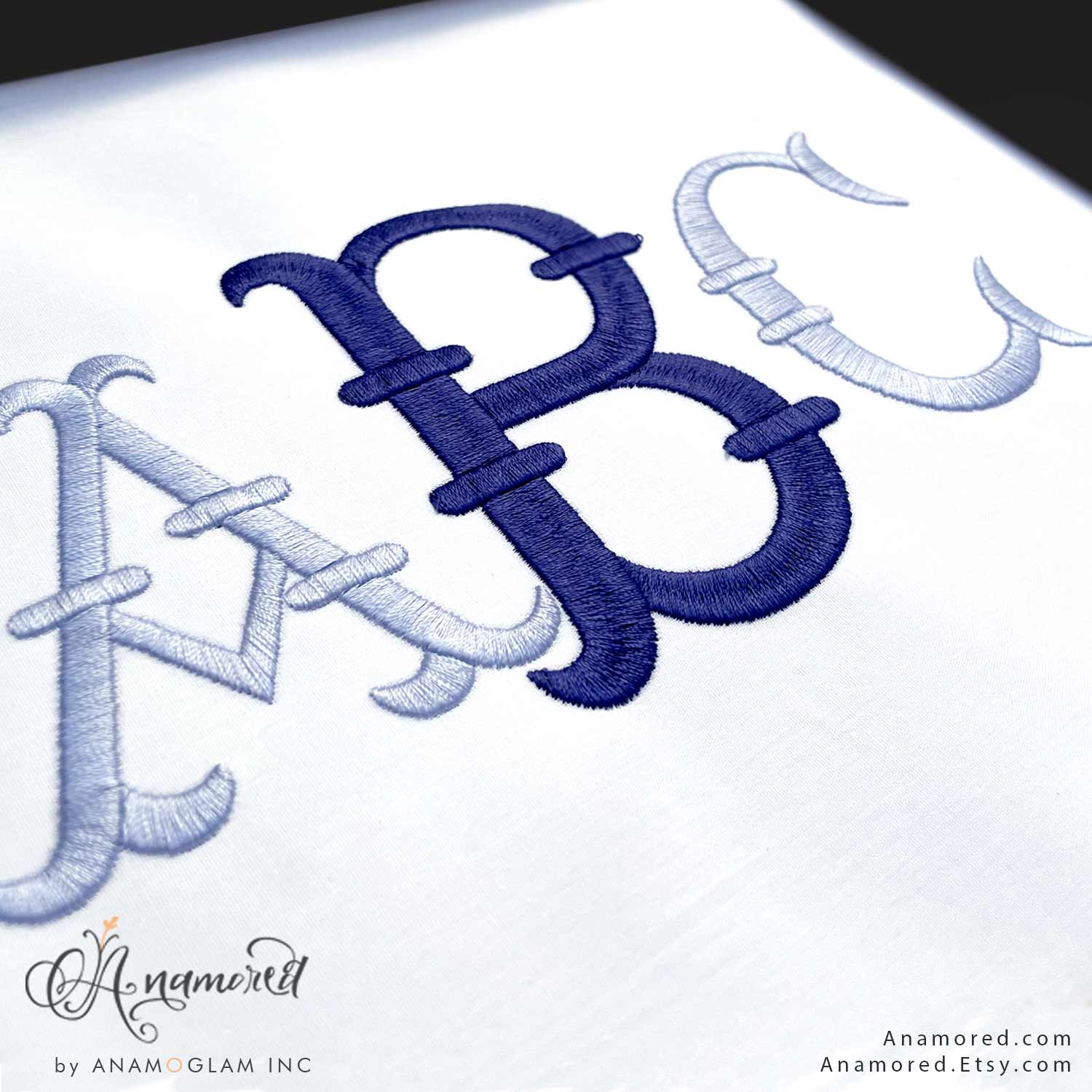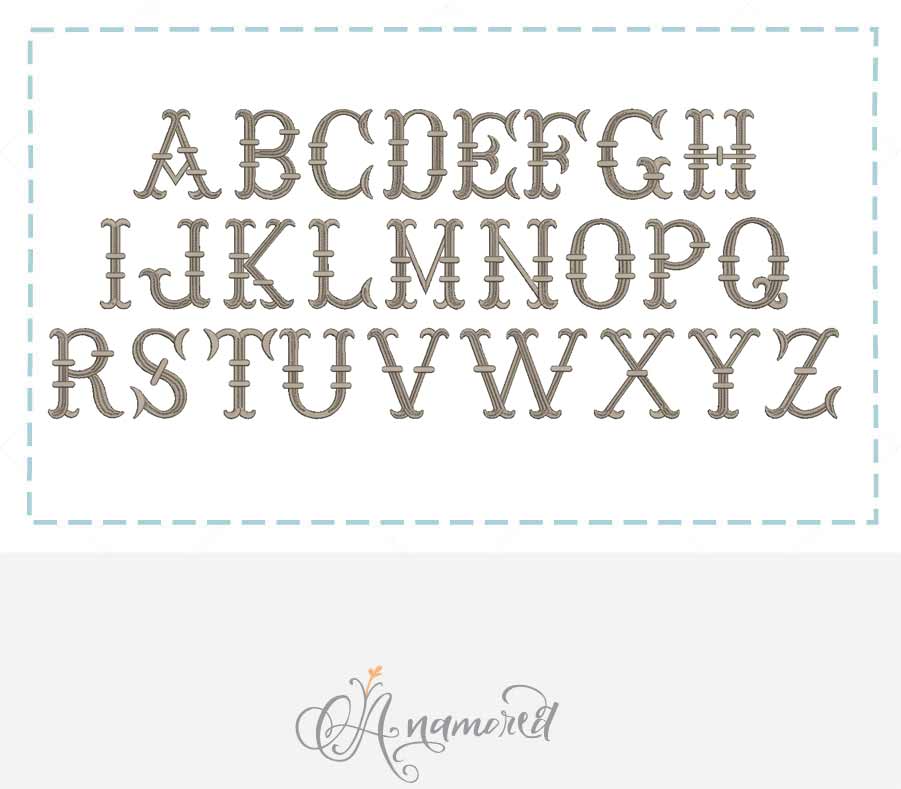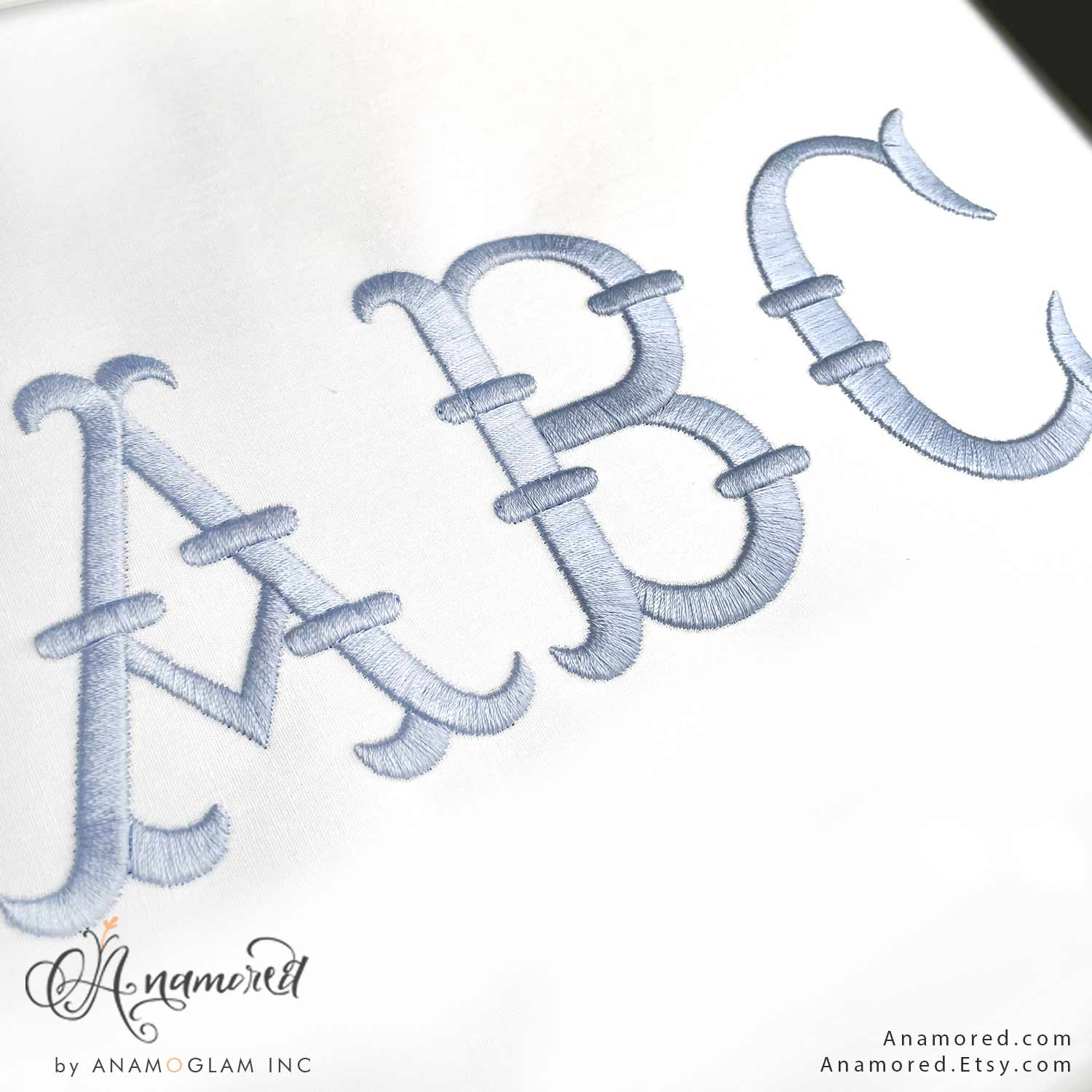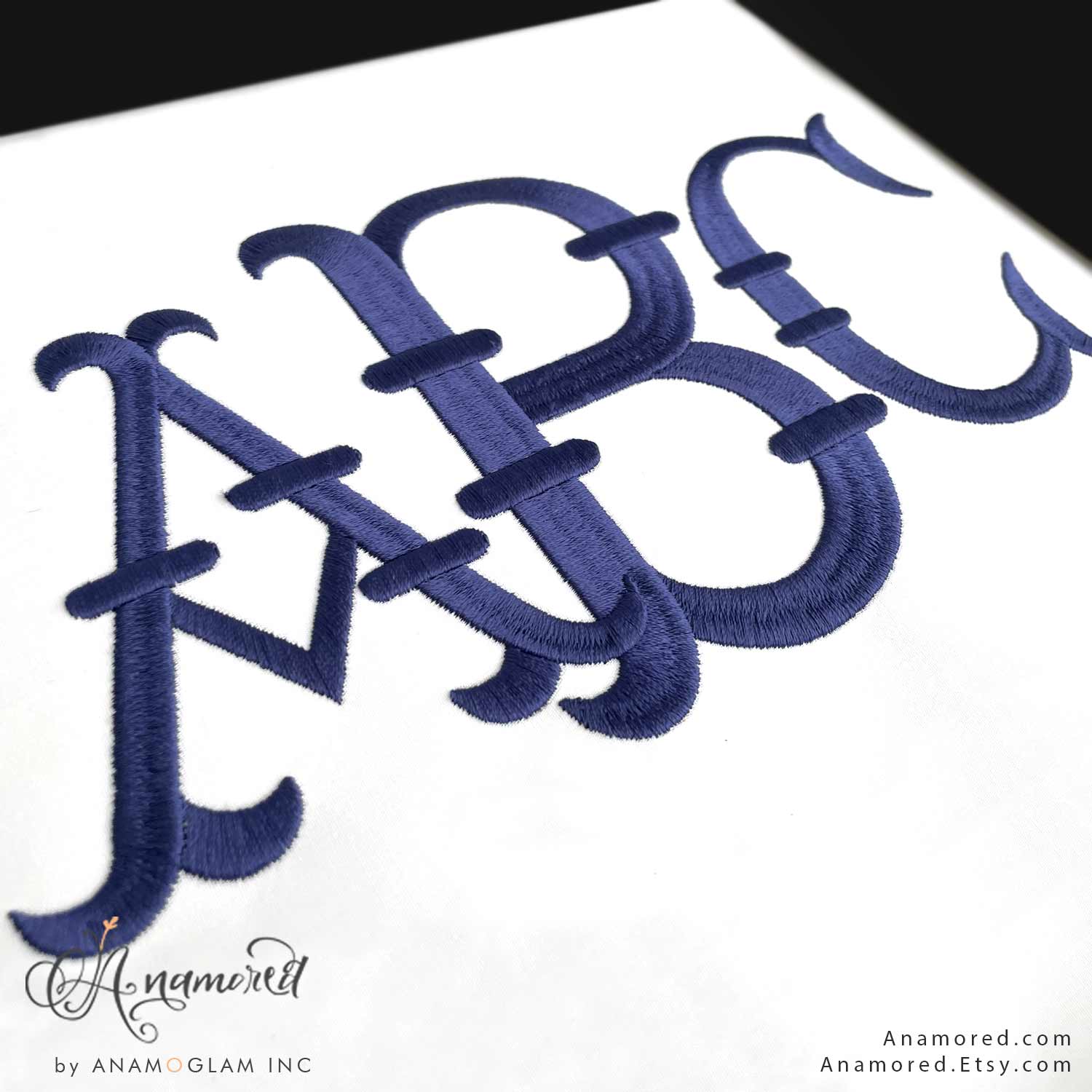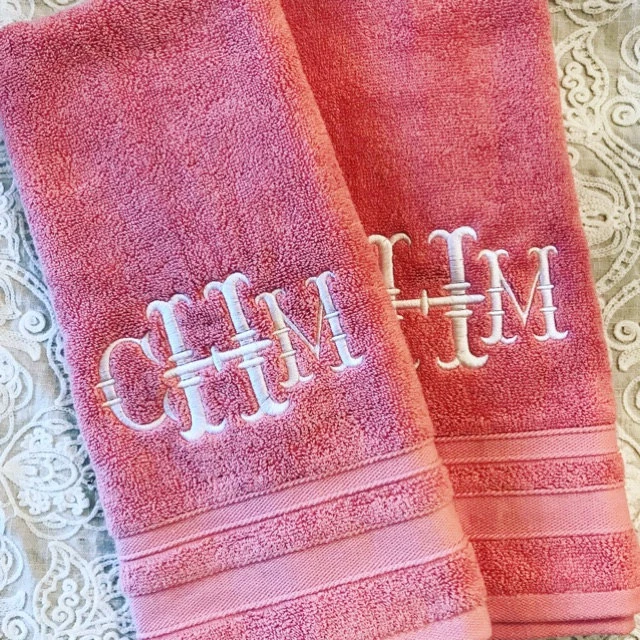
3 sizes (3, 4, 5 inch) Medium French Fishtail Machine Embroidery Monogram Font
French Fishtail Embroidery Monogram Alphabet
Great for athletic designs too.
Satin stitch. Split Satin in wide areas.